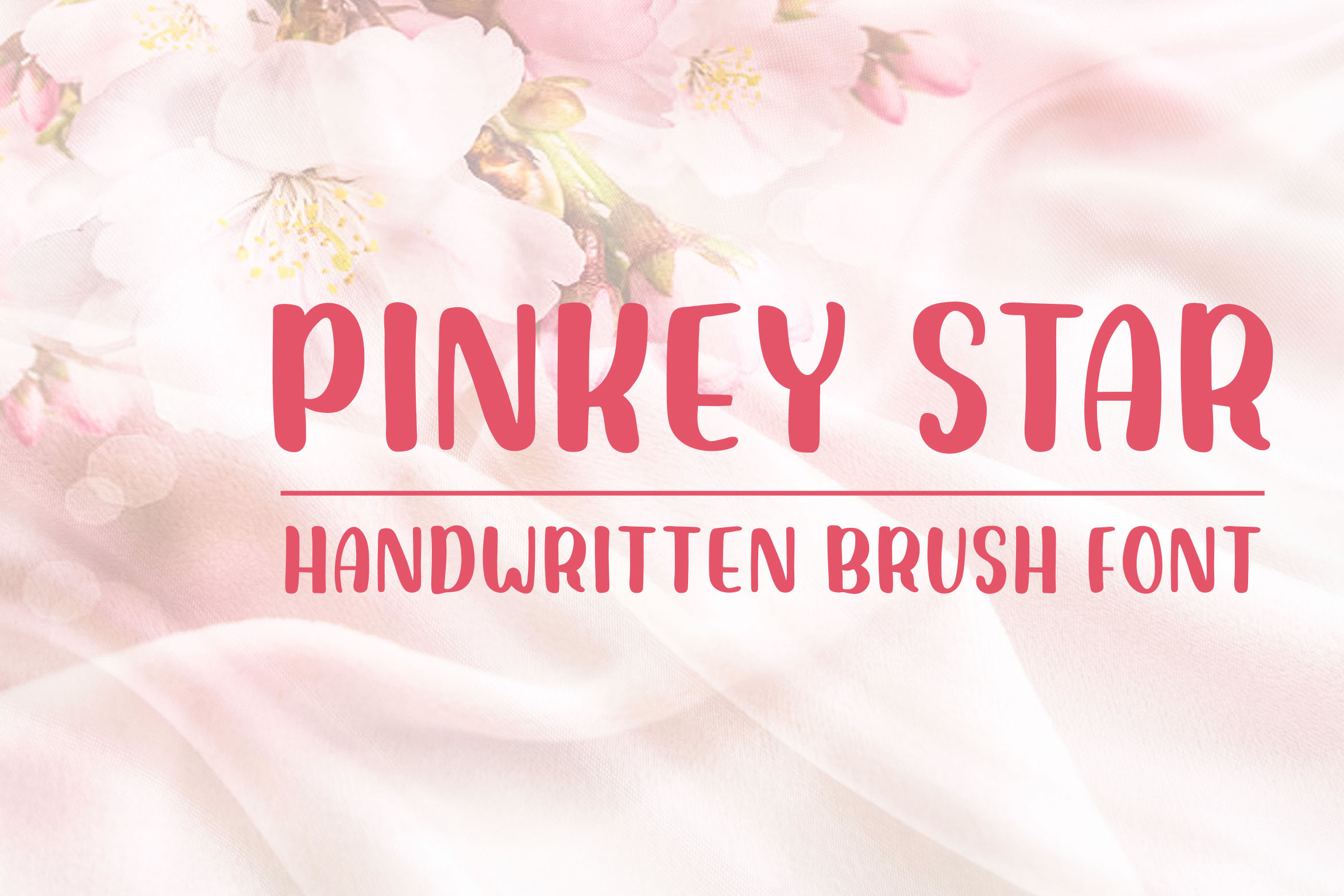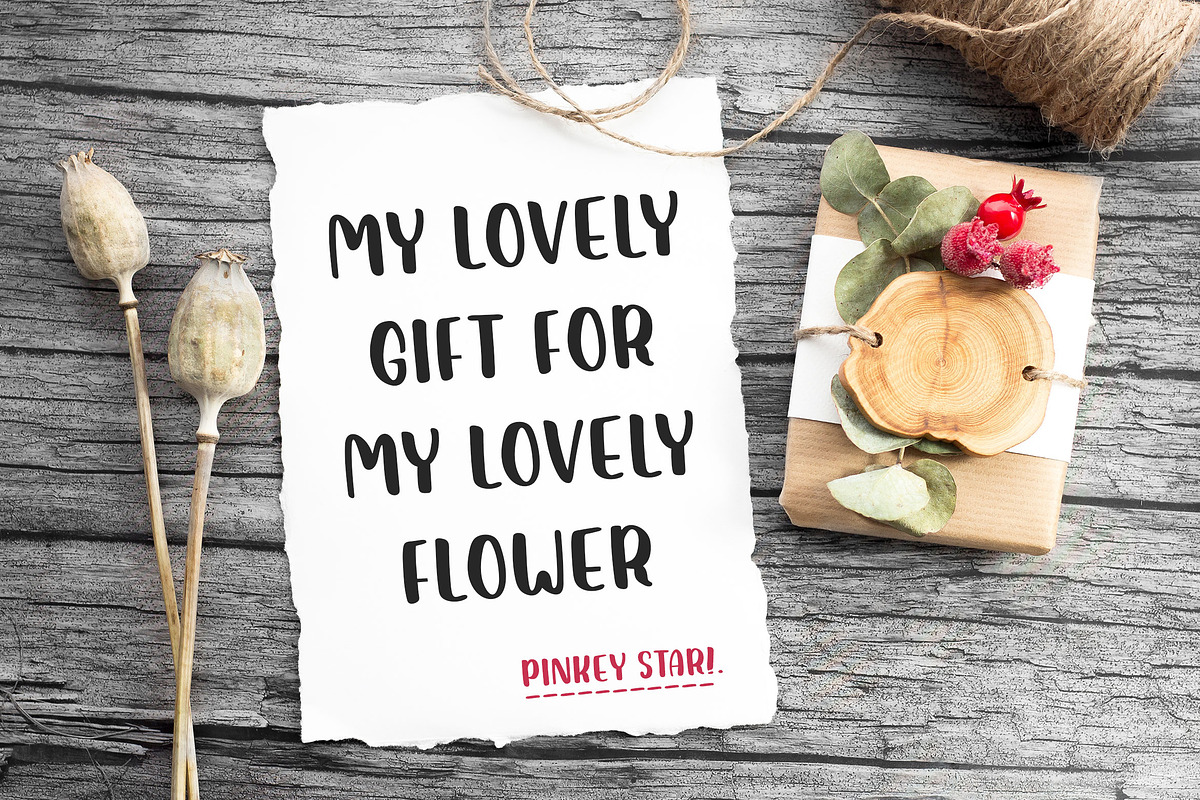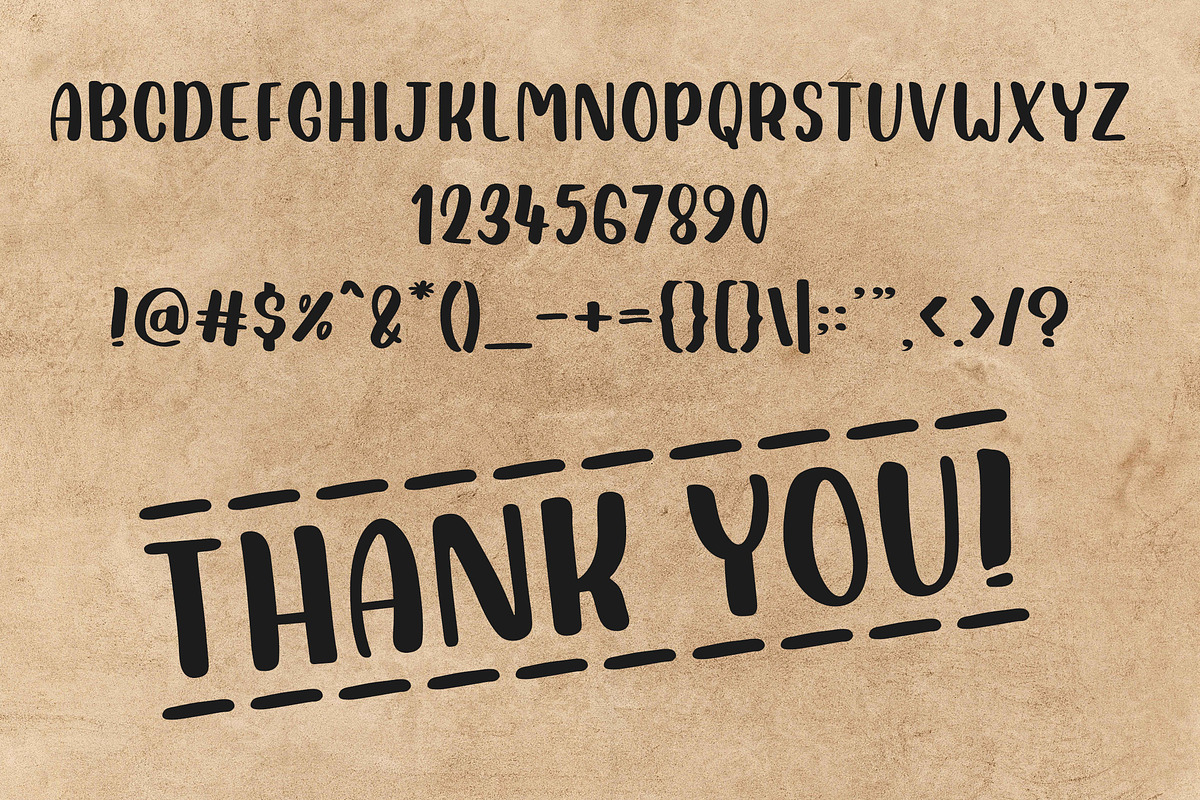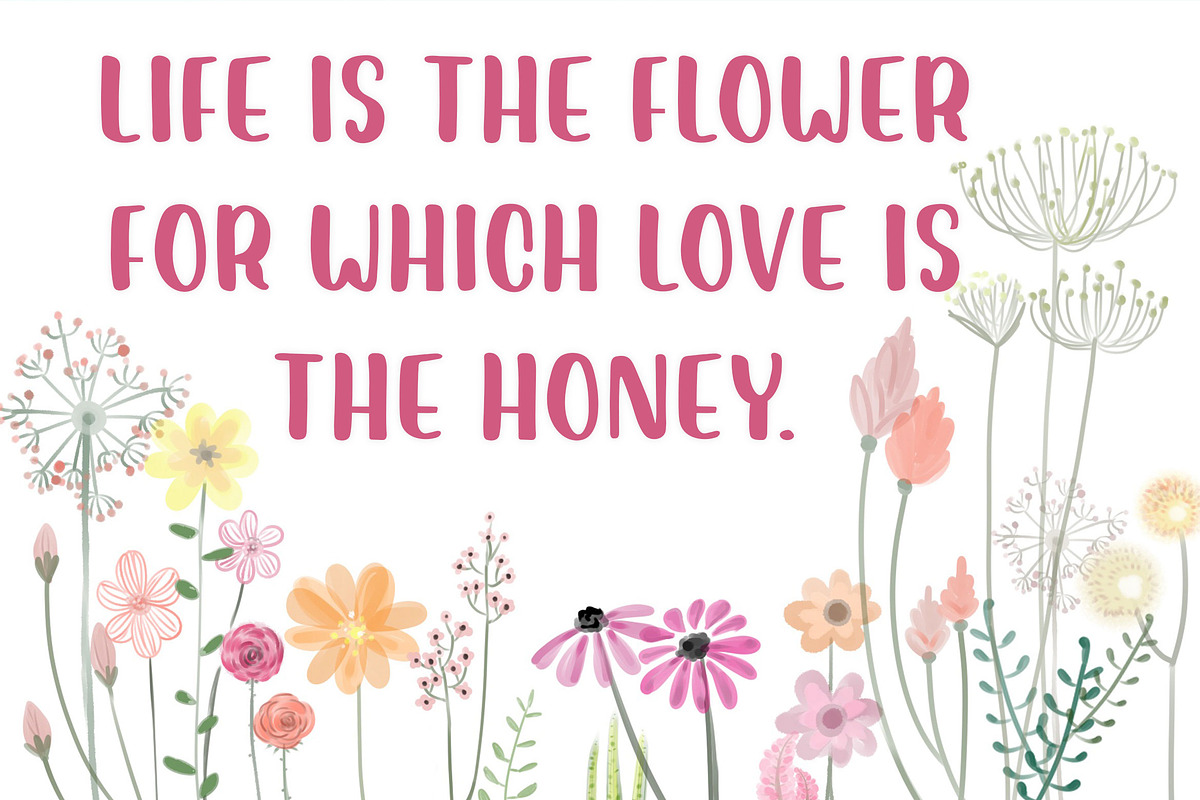
Pinkey Star - Handwritten Brush Font
Pinkey Star is new Handwritten Brush Lettering style clean and simple All Caps Brush font.
Pinkey Star Brush Font Made with Tombow Large Brush Pen It has a bold and smooth style which perfectly fits for Handlettering Projects, Invitations, Kids Projects, video titles and much more.
Included Uppercase, Lowercase (all Caps), Numbers, Punctuation's/Symbols.